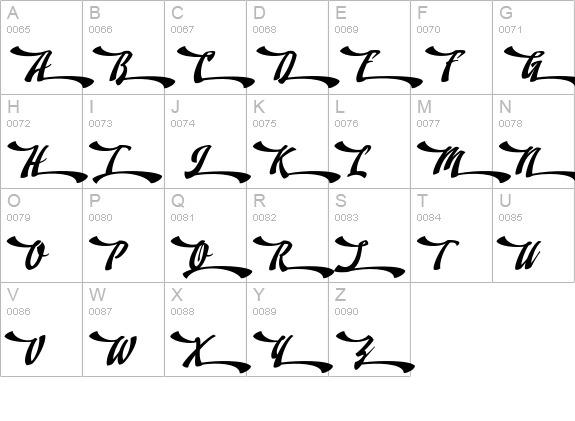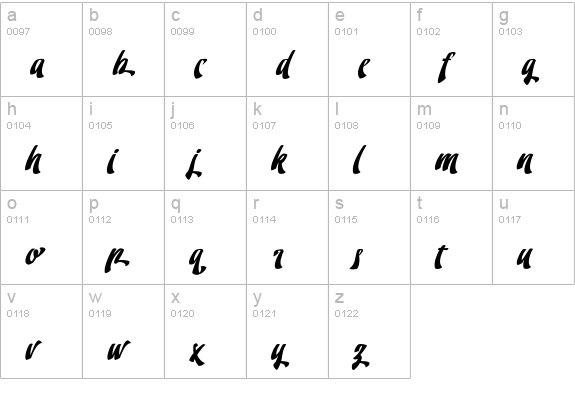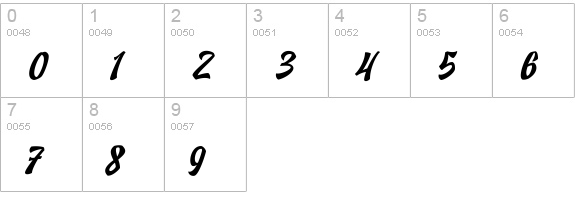
Doedel Alternate 5 Multiple Font Details
Doedel Alternate 5 Multiple font is a stylish and versatile typeface that is perfect for adding a touch of creativity to your designs. With its unique and eye-catching letterforms, this font is sure to make a statement in any project. Whether you're designing a logo, poster, or website, Doedel Alternate 5 Multiple font will help you stand out from the crowd. Best of all, Doedel Alternate 5 Multiple font is available for free download at FontsMarket.com. Simply visit the website to grab this amazing font and start using it in your projects today. Don't miss out on this fantastic opportunity to enhance your designs with this stunning typeface!